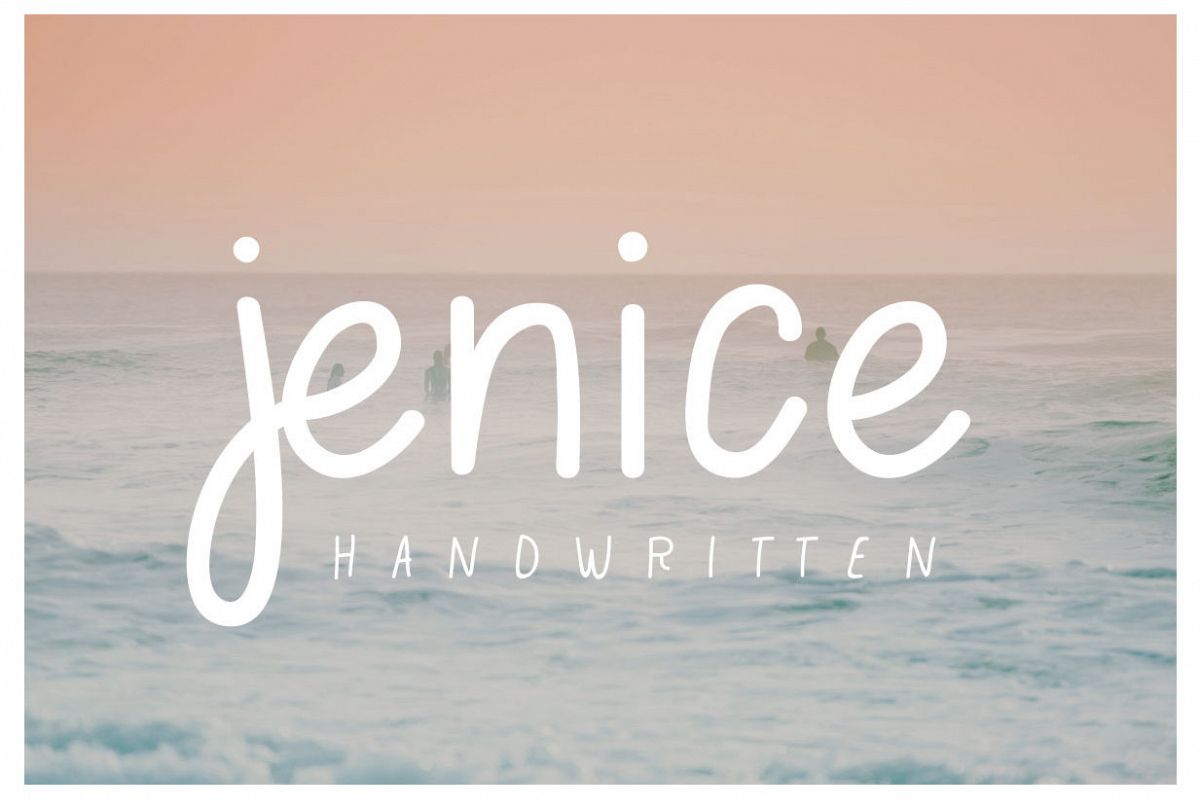
jenice | casual handwritten font
jenice-regular
jenice is a multilingual sans handwritten font. with its casual style, it can be a winner for wedding stationery and for bloggers. Its casual handwritten look makes it the perfect fit for logos, printed quotes, wedding invitation cards, social media headers, product packaging and a lot more!Here is what you get in the download:
• "jenice" handwritten font with a whole set of uppercase & lowercase alternates